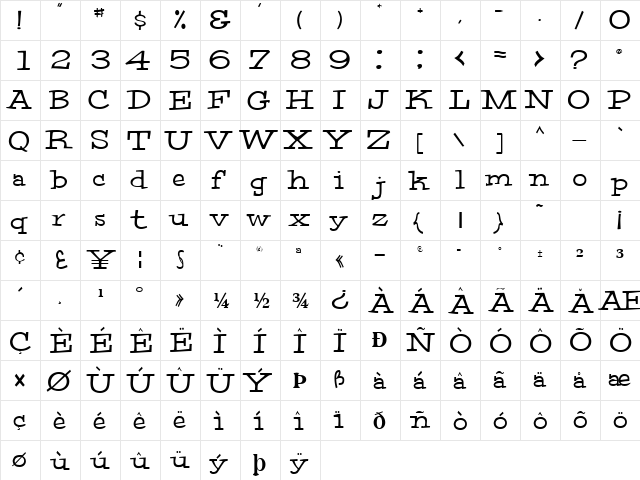
SchoolBoyOld80 Regular
Design Context for SchoolBoyOld80 Typeface
SchoolBoyOld80 offers clean, dependable letterforms without strong stylistic allegiance, making it a practical choice for designers who need flexibility.